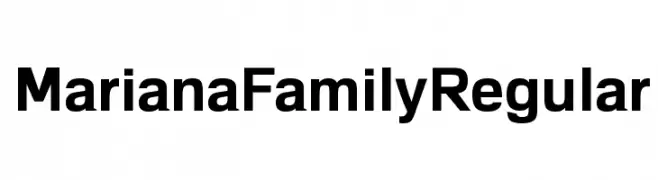
A bold, modern sans-serif font with excellent readability and uniform strokes.
A bold, modern sans-serif font with a clean and professional appearance.